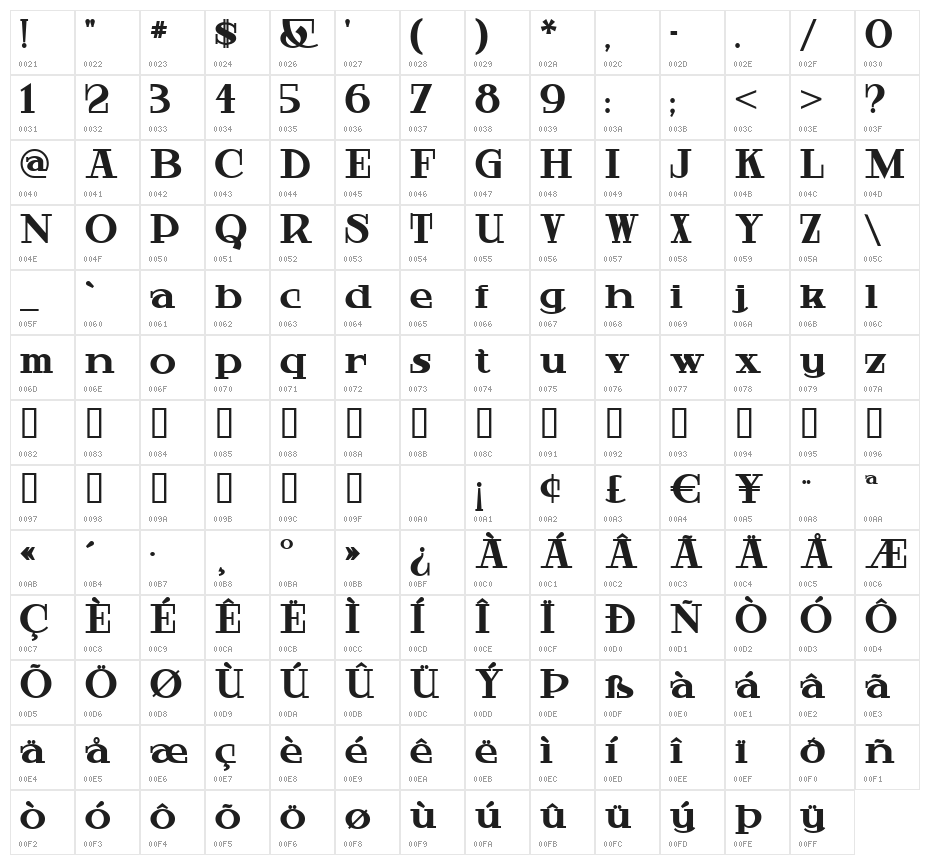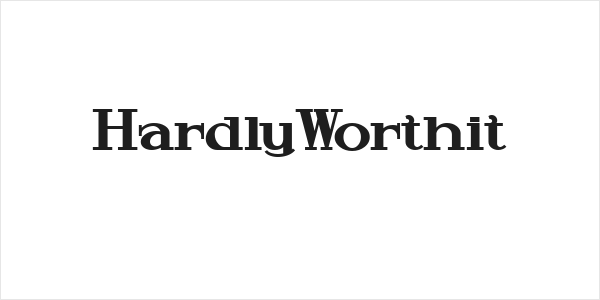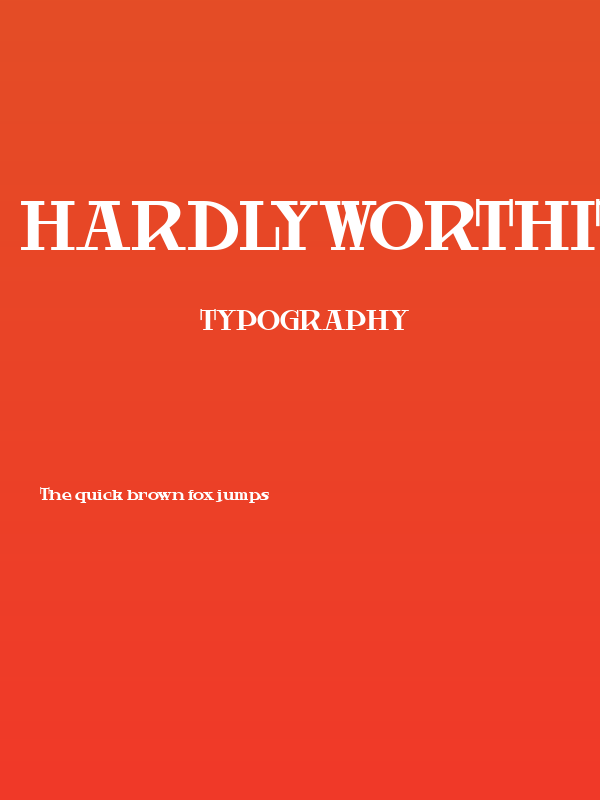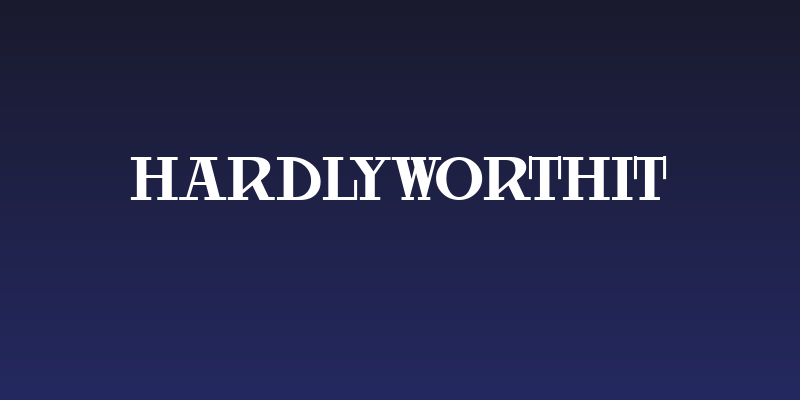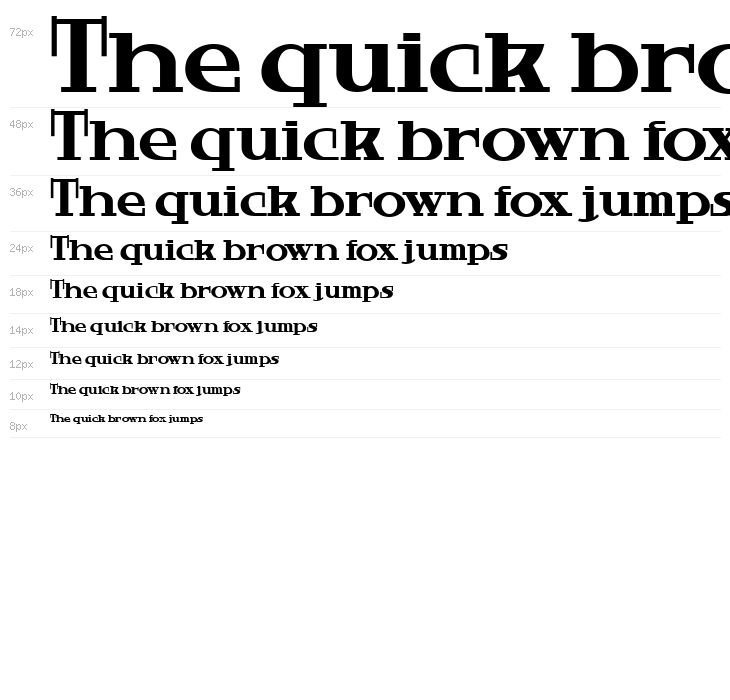
HardlyWorthit Font
HardlyWorthit Description
This font exudes a classic and authoritative presence with its bold, serif design. The characters are well-defined with strong, thick strokes that provide a high contrast, making it highly legible and impactful. The serifs are pronounced, adding a touch of elegance and tradition. The uppercase letters are particularly striking, with a commanding presence that draws attention. The lowercase letters maintain a consistent style, ensuring readability. The numerals are clear and robust, suitable for various applications. Special characters are included, maintaining the font's cohesive style. Overall, this font is ideal for projects that require a strong, traditional aesthetic.
| Use Case | Headlines, Logos, Book covers |
| Proposed Projects | Ideal for book covers, headlines, formal invitations, and branding that requires a traditional and strong aesthetic. |